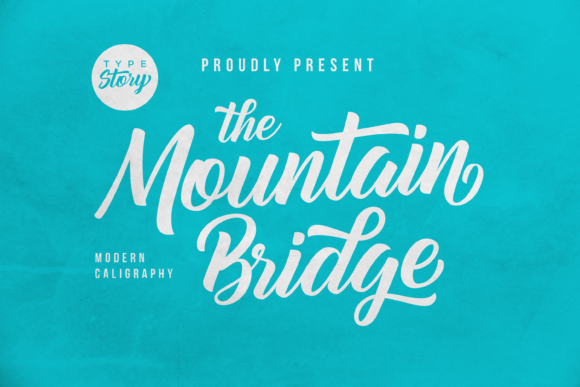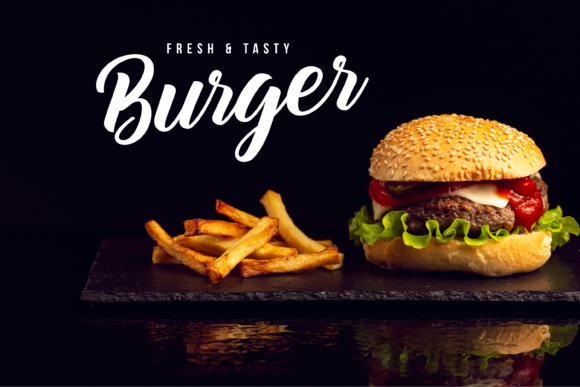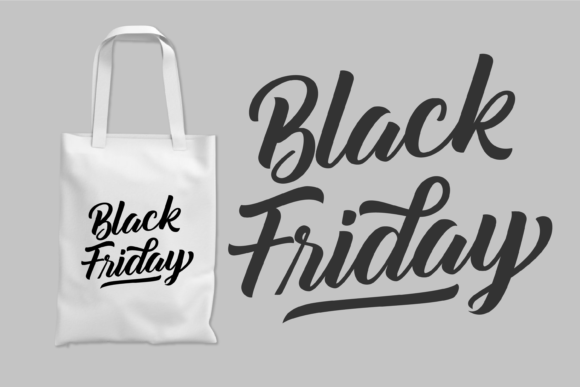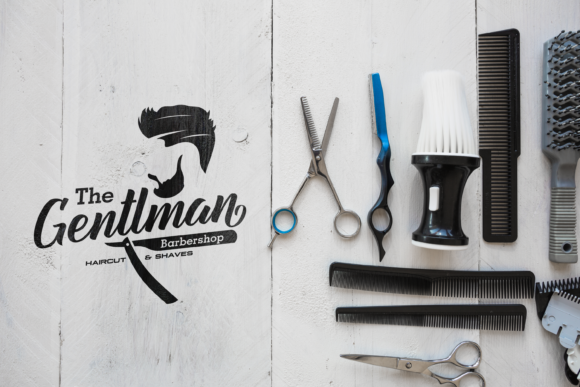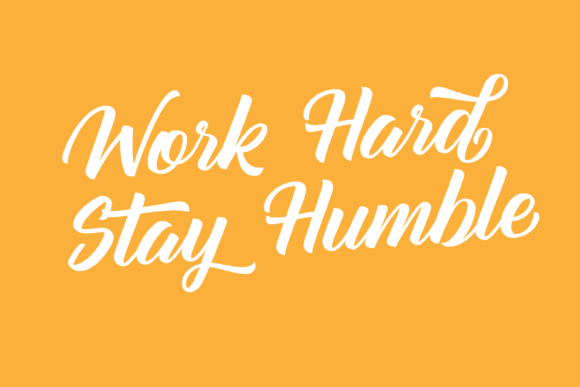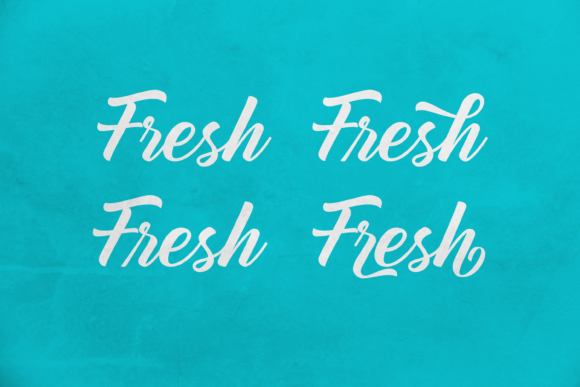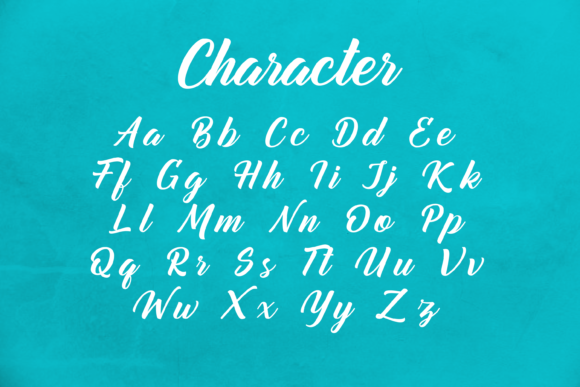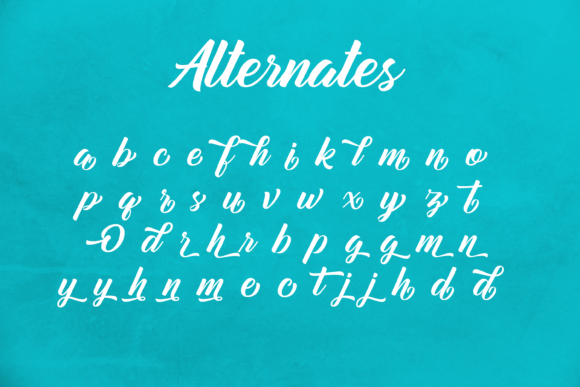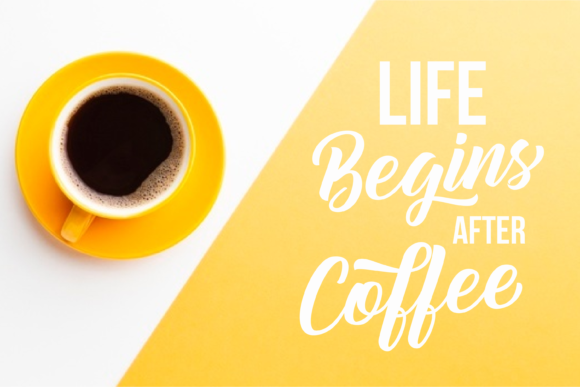
Mountain Bridge Font
About Mountain Bridge Font
Mountain Bridge is a bold script font, carefully handcrafted to become a true favorite. Its casual charm makes it appear wonderfully down-to-earth, readable and, ultimately, incredibly versatile. Mountain Bridge will look outstanding in any context, whether it’s being used on busy backgrounds or as a standalone headline!
This font is PUA encoded which means you can access all of the great glyphs and swashes with ease! It also features a wealth of special features including alternate glyphs and ligatures.